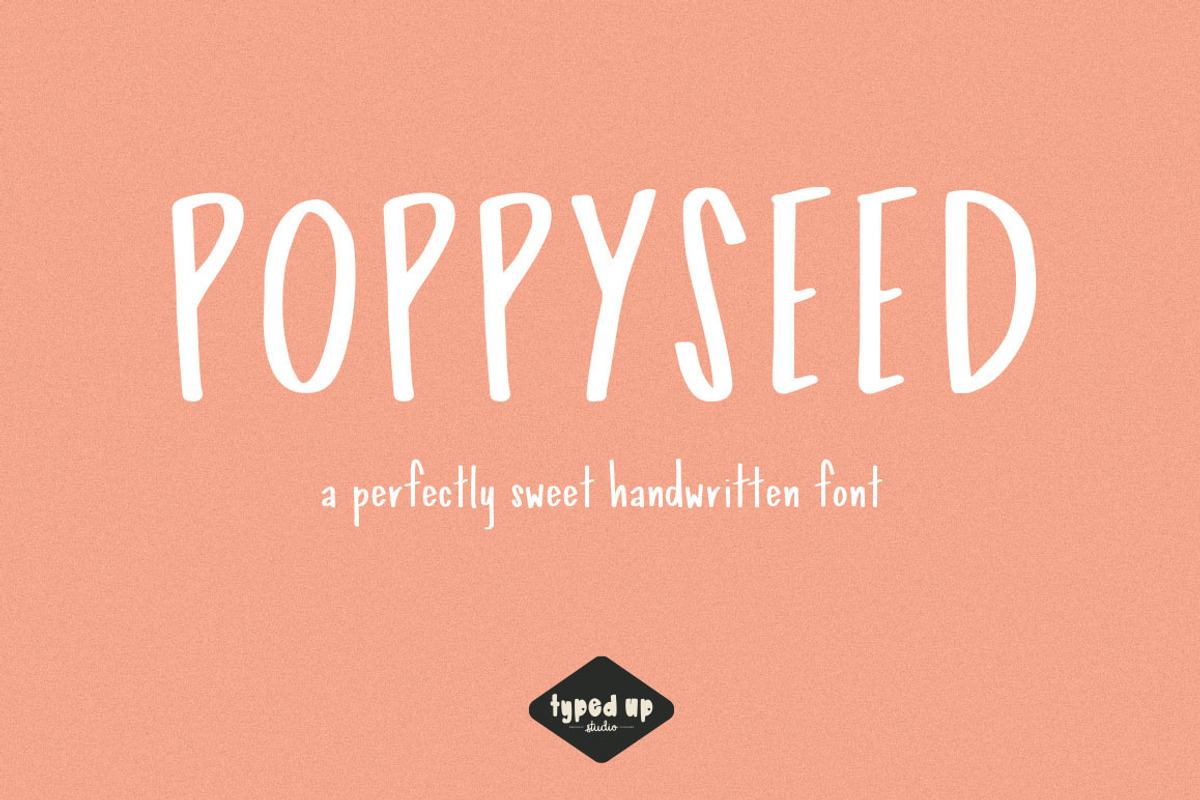
Poppyseed | Handwritten Sans Font is perfect for organic brand identities, artisanal product labels, natural cosmetics packaging, handcrafted business materials, eco-friendly marketing campaigns, botanical design projects, wellness brand communications, authentic personal branding, creative portfolio headers, wholesome food packaging, gentle lifestyle products, and natural beauty applications.
Poppyseed | Handwritten Sans Font is exciting because it captures the delicate beauty and natural simplicity of tiny poppyseeds through its gentle handwritten letterforms that embody organic authenticity, wholesome goodness, and the understated elegance of nature's smallest treasures. This charming typeface features soft character strokes with natural irregularities that reflect the handcrafted quality and authentic imperfections that make handwritten communication so appealing and personal. The font's organic aesthetic creates instant emotional connections with audiences who appreciate natural beauty, authentic craftsmanship, and the gentle simplicity of wholesome living.
Poppyseed | Handwritten Sans Font includes comprehensive font families: Regular Natural Style, Bold Wholesome Weight, Light Delicate Touch, Medium Organic Balance, Italic Flowing Grace, Condensed Compact Format, Extended Generous Width, Handcrafted Texture Version, Clean Modern Alternative, and Special Natural Symbols, providing complete solutions for organic and natural design projects that celebrate authenticity, simplicity, and wholesome values.
This authentic typography solution transforms digital communications into natural handwritten experiences through its genuine organic aesthetic and handcrafted design language. Poppyseed | Handwritten Sans Font Free Download enables designers and natural brands to access premium handwritten typography that instantly adds authenticity, warmth, and organic appeal to any creative project. The font's carefully observed natural variations ensure realistic handwritten character while maintaining excellent readability and distinctive organic presence.
Natural brands, wellness companies, and artisanal businesses trust Poppyseed | Handwritten Sans Font for its ability to communicate authenticity, wholesomeness, and natural quality to audiences seeking genuine organic experiences and handcrafted product quality. The typeface's gentle construction performs beautifully across various applications, from intimate natural communications to large-scale organic branding campaigns. Its extensive character support includes multilingual capabilities and natural design elements that enhance authentic organic brand presentations.
The creative inspiration behind Poppyseed | Handwritten Sans Font draws from the simple beauty of garden seeds, the authenticity of handwritten notes, and the universal appeal of natural, unprocessed aesthetics that comfort and inspire. This naturalness-focused approach creates a font that feels genuinely organic while maintaining contemporary relevance across different natural contexts and wholesome brand expressions.
Whether creating natural brand identities, organic product packaging, or wholesome marketing campaigns, this handwritten sans font delivers exceptional results that embody the gentleness and authenticity of natural living. Download Poppyseed | Handwritten Sans Font today and discover how premium organic typography can transform your design projects into authentic expressions of natural beauty, wholesome simplicity, and the gentle charm that defines the most genuine and heartfelt brand communications.